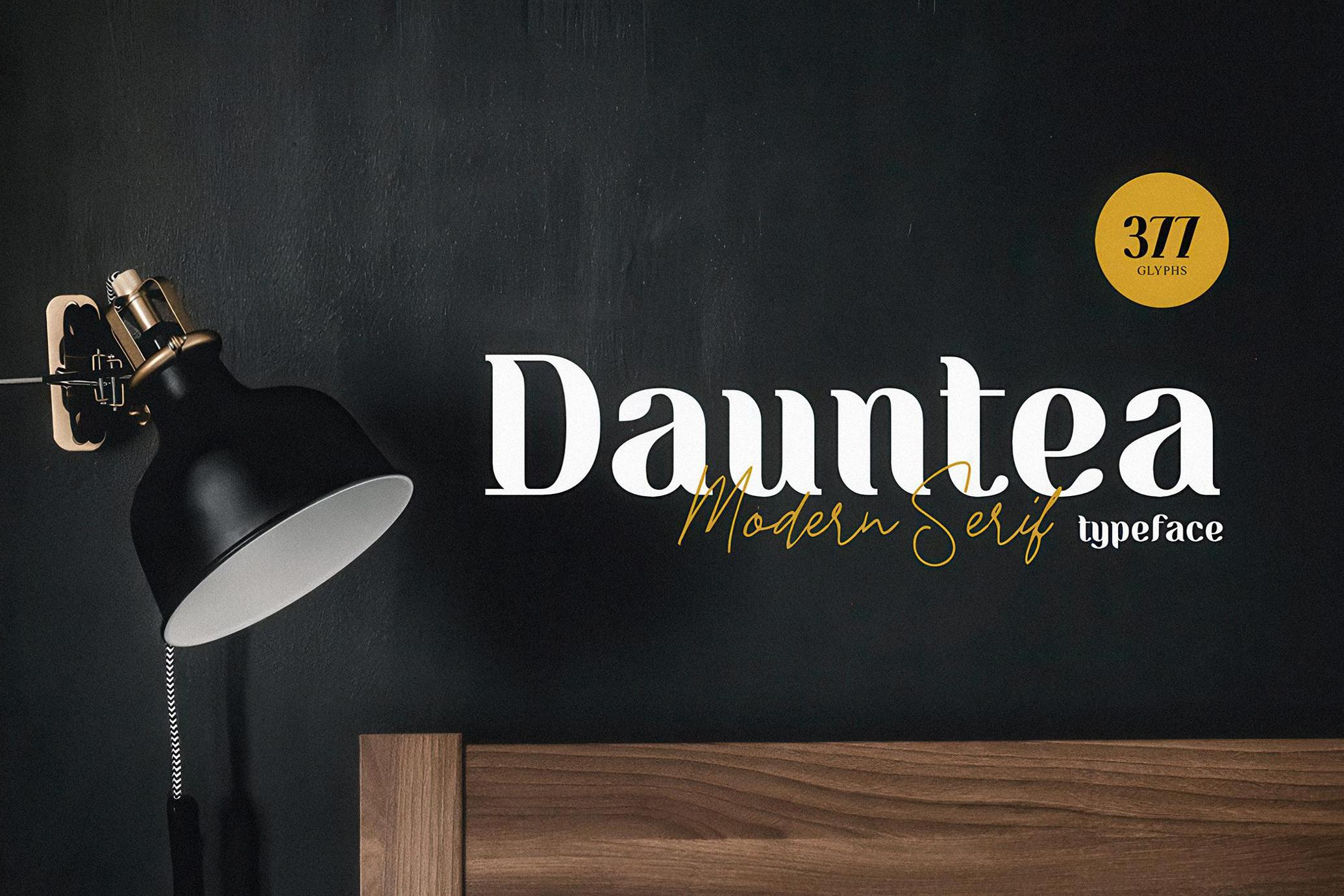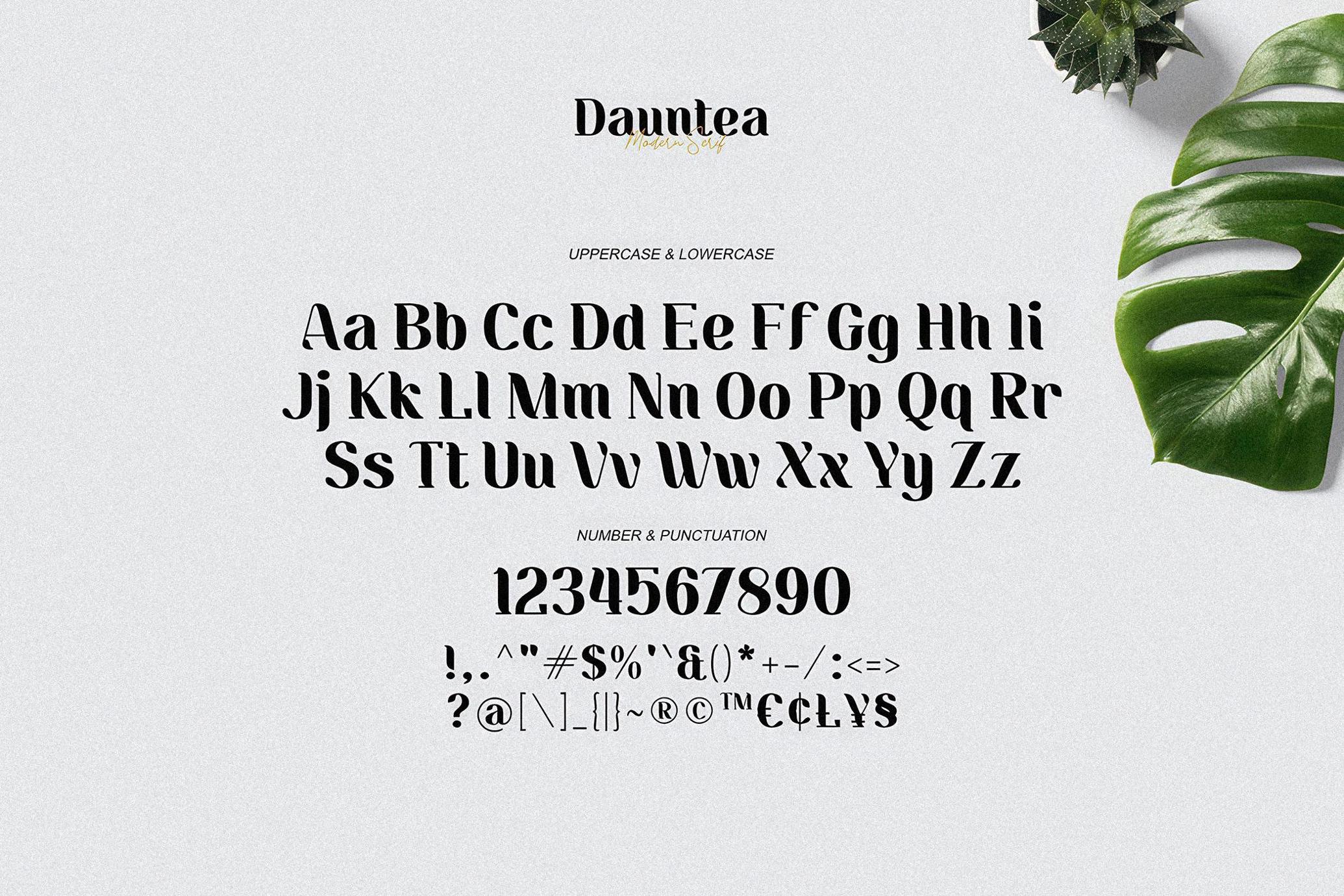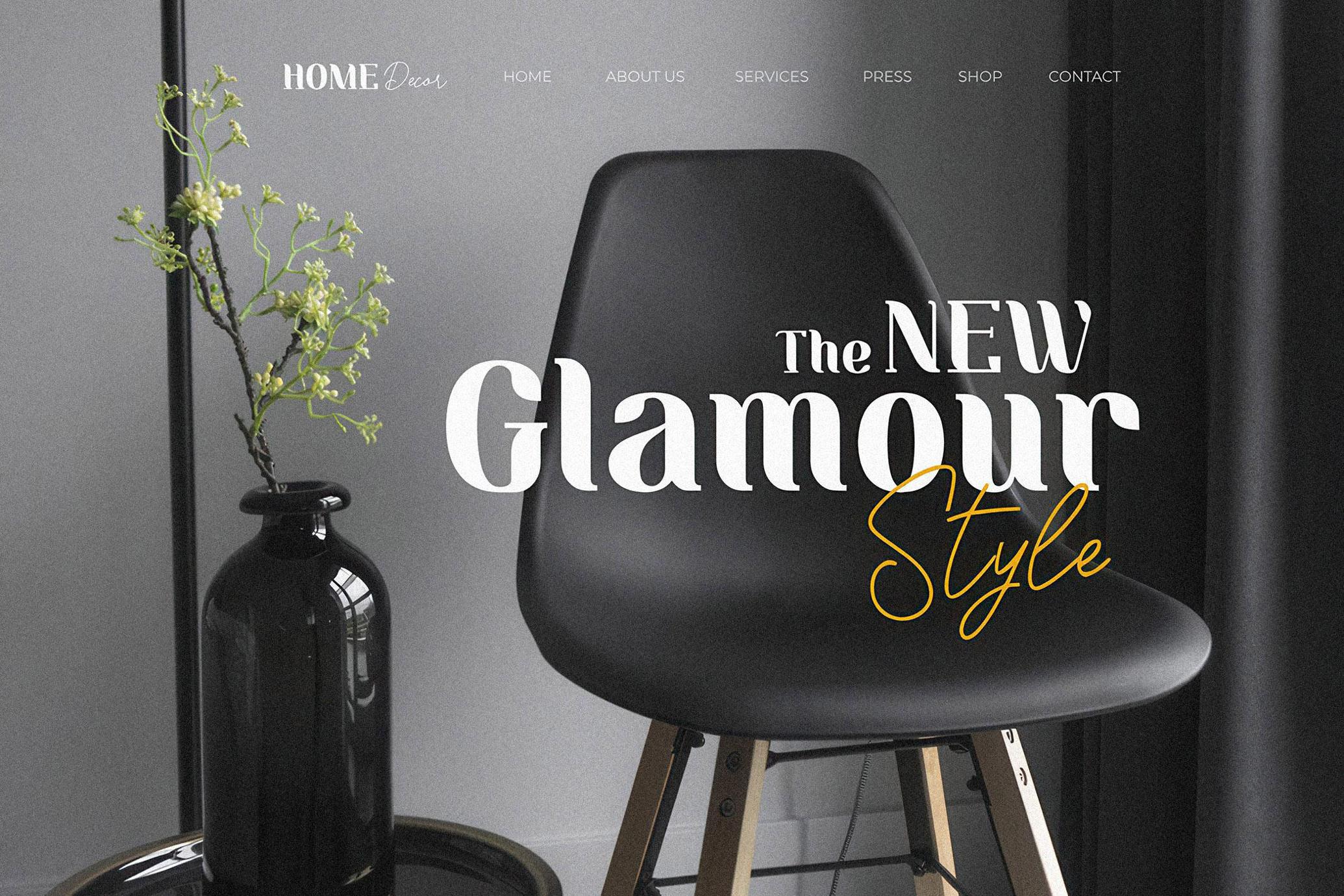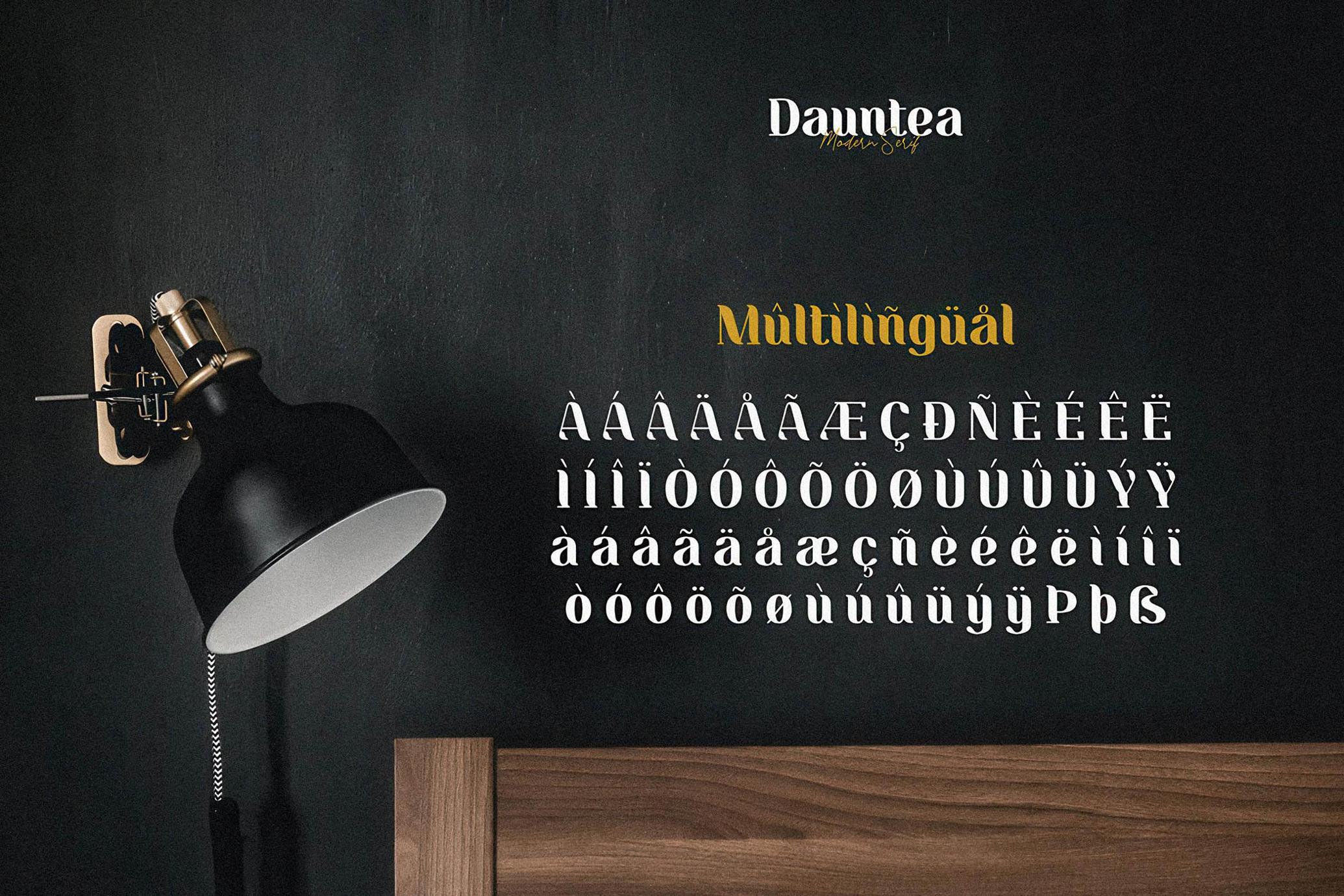
Dauntea - Modern Serif Font
Dauntea
Dauntea is a bold serif typeface with a unique decorative shape. The form is inspired by the shape of leaf with the unique tail character on uppercase. Dauntea is a simple font with calm impression. This typeface is perfect for an elegant logo, branding, layout magazine, home & decor layout, beauty product, packaging product, quotes, or simply as a stylish text overlay to any background image.